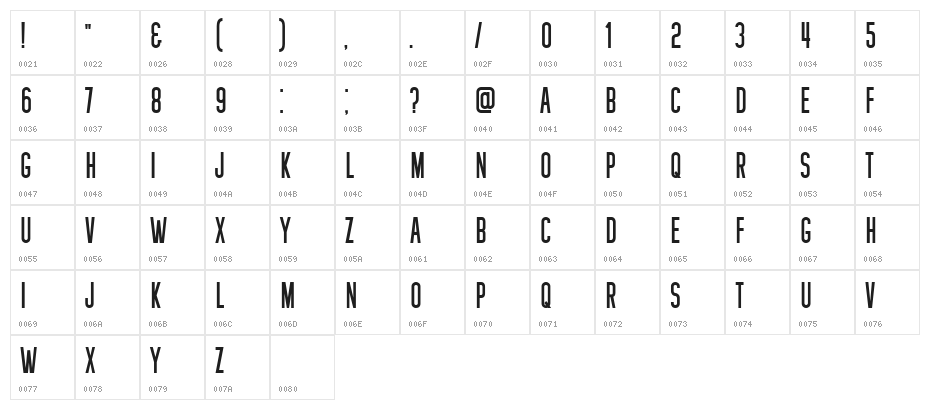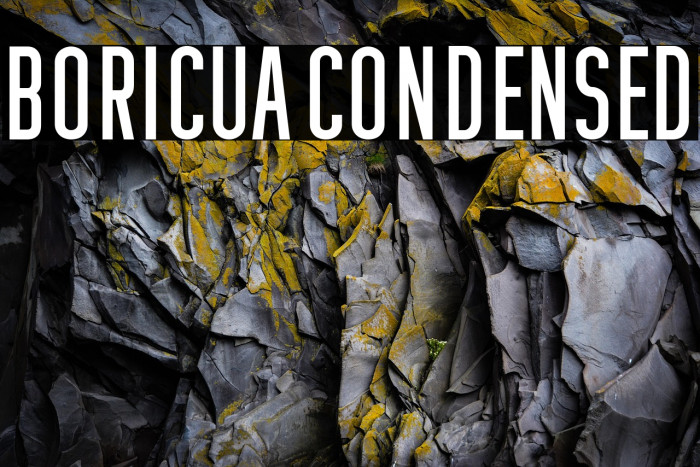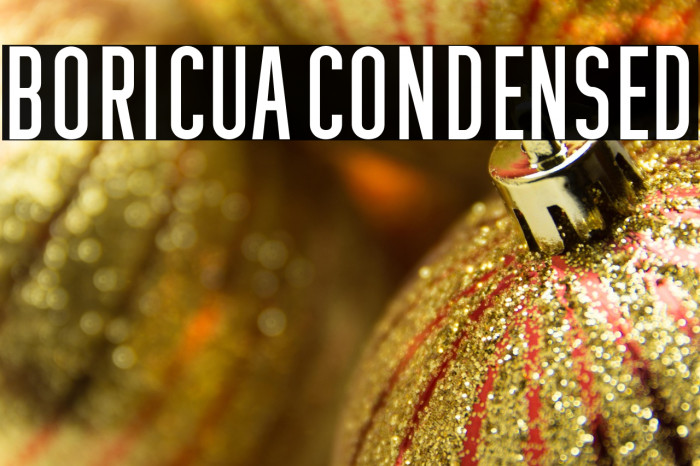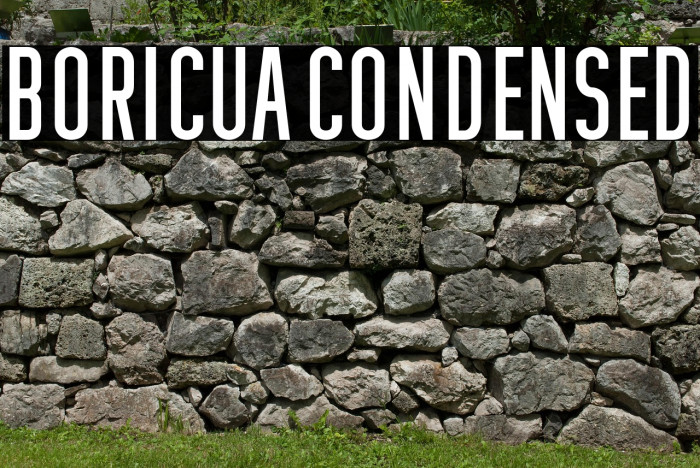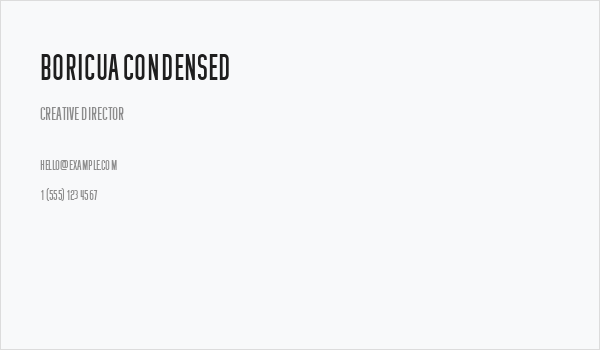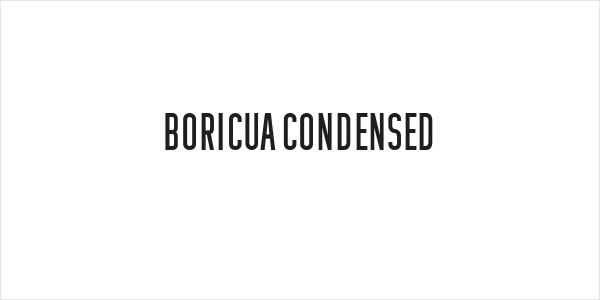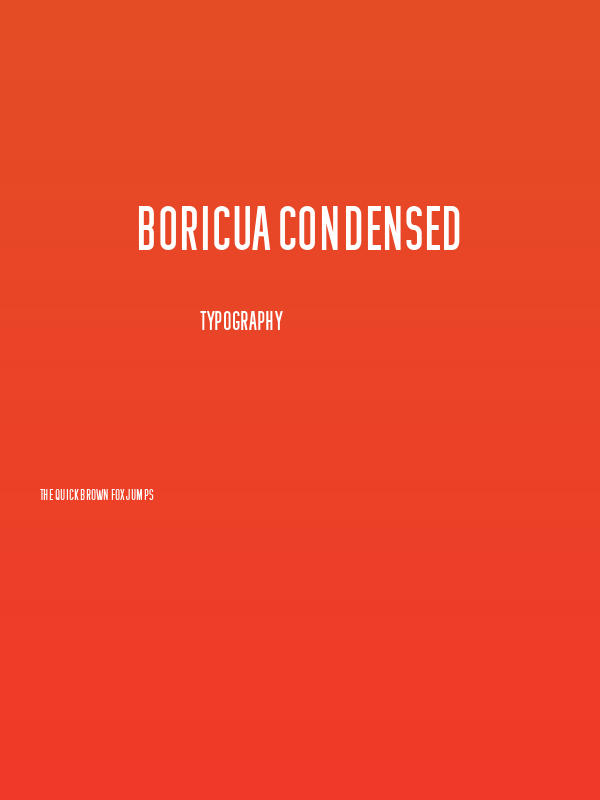
Boricua Condensed Font
Boricua Condensed Description
This font features a bold and condensed style, characterized by tall, narrow letters with clean lines and a modern aesthetic. The uppercase and lowercase letters maintain a consistent height, contributing to its uniform appearance. The numbers are similarly styled, ensuring readability and cohesion across different text elements. Special characters are designed to match the overall sleek and contemporary look, making it suitable for a variety of design applications. Its condensed form allows for efficient use of space, making it ideal for headlines and titles where impact is essential.